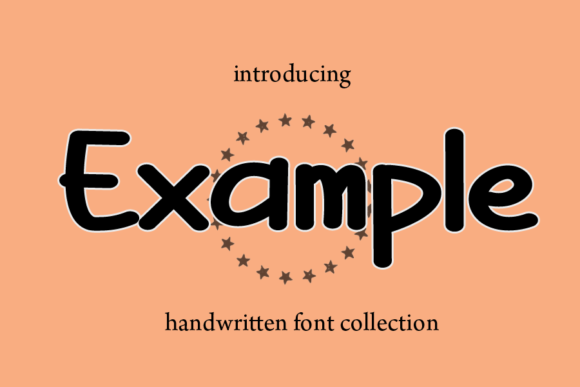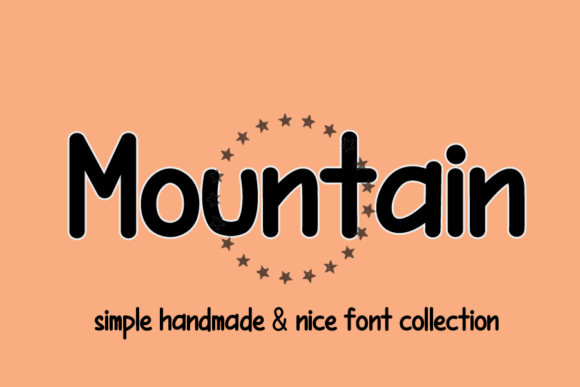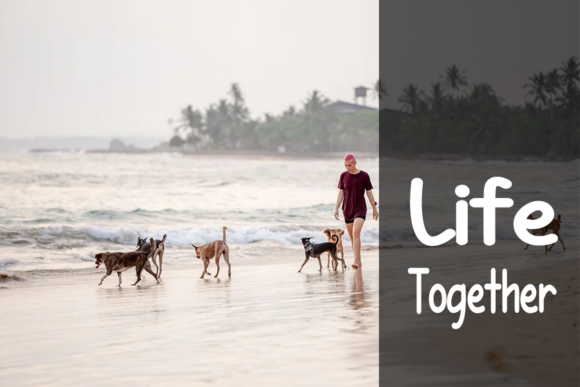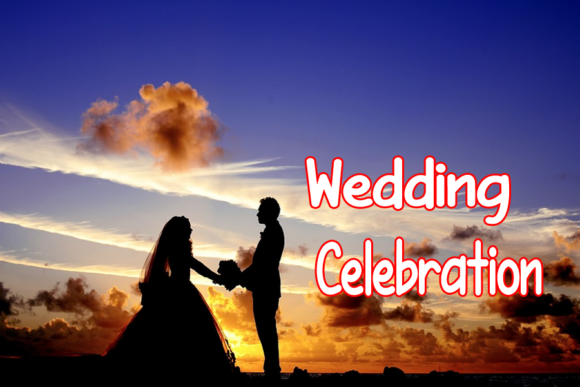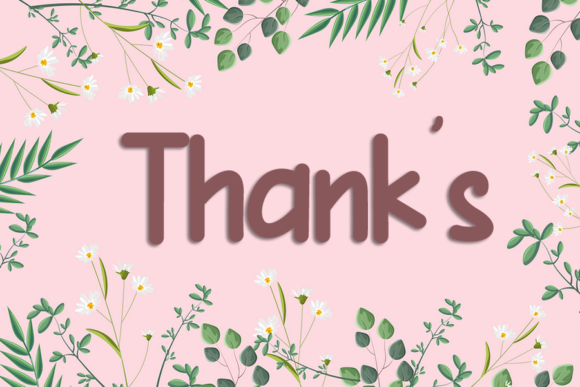
Example Font
About Example Font
Example is a thin-lettered and simple script font that captivates with its ravishing style. This font is ideal for creating gorgeous wedding invitations, beautiful stationery art, eye-catching social media posts, and various other design projects. The thin and elegant lettering of Example adds a touch of sophistication to your text, making it a versatile choice for a wide range of applications.
The simplicity of Example enhances its versatility, allowing it to complement different design themes and styles seamlessly. Whether used for formal occasions or more casual and contemporary designs, this font brings a refined and modern aesthetic to your projects.
The ravishing style of Example ensures that it stands out, making it a captivating option for creating visually appealing content. Its thin lettering adds an element of delicacy and grace to your text, creating an overall look that is both subtle and elegant.
In summary, Example is more than just a font; it’s a design asset that brings a thin-lettered and simple script style to your creative endeavors. Whether crafting wedding invitations or social media posts, Example adds a touch of sophistication and charm to your designs. Explore the possibilities and let Example be the perfect choice for creating stunning and stylish visuals.